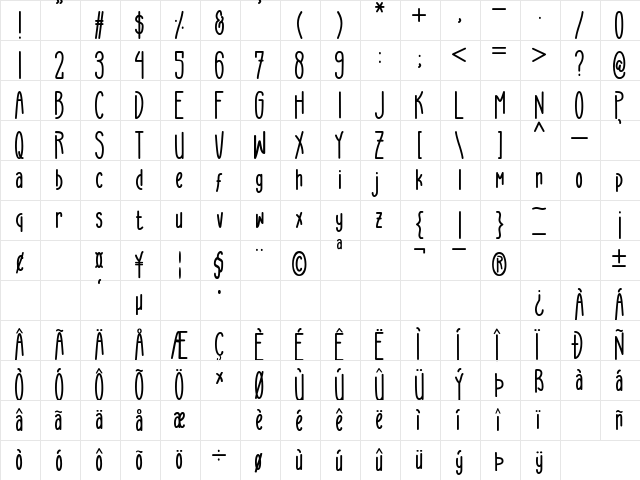
Avoid Regular
Design Context for Avoid Typeface
Avoid takes a measured approach to typography — its balanced proportions and neutral character make it a reliable workhorse for both digital and print work.